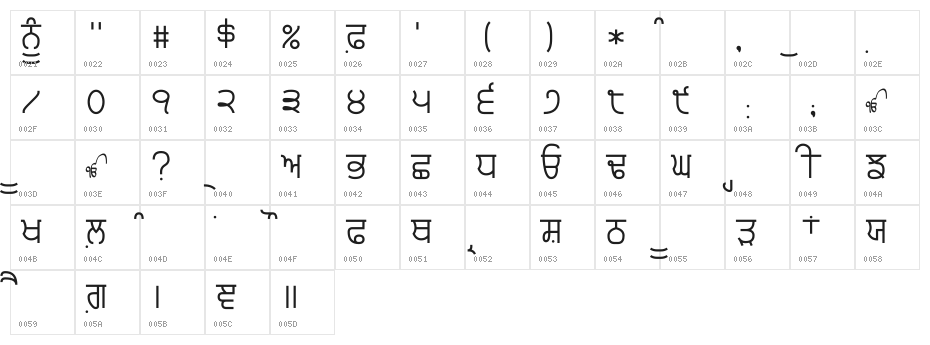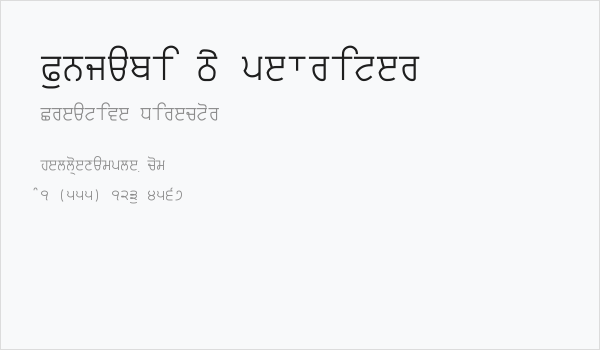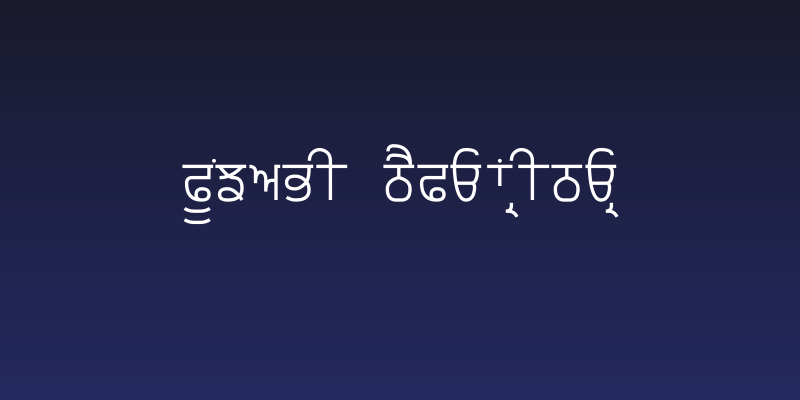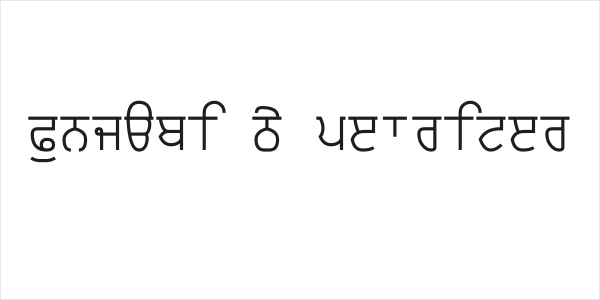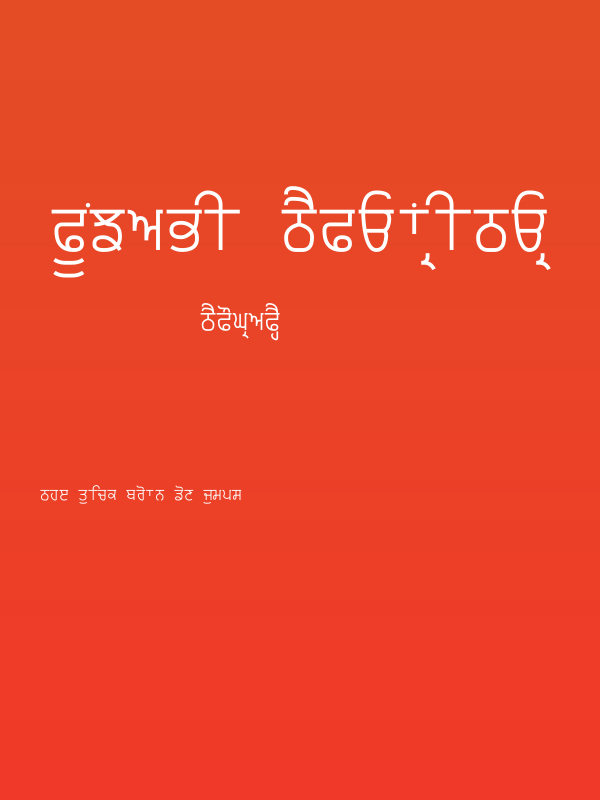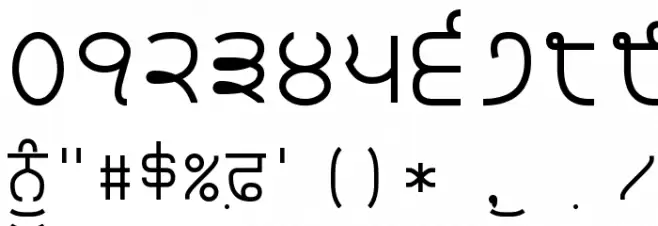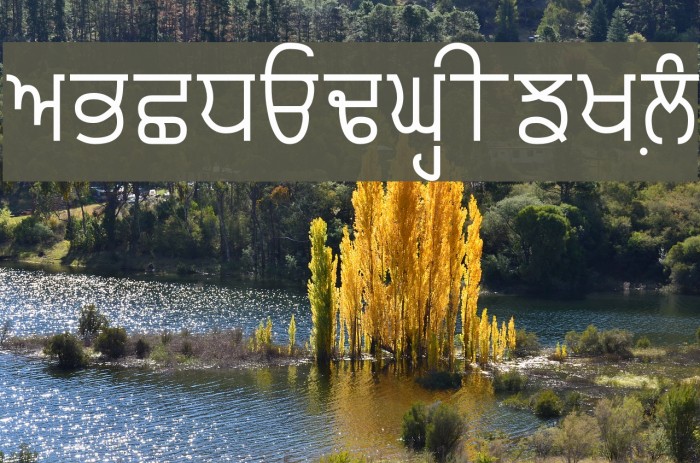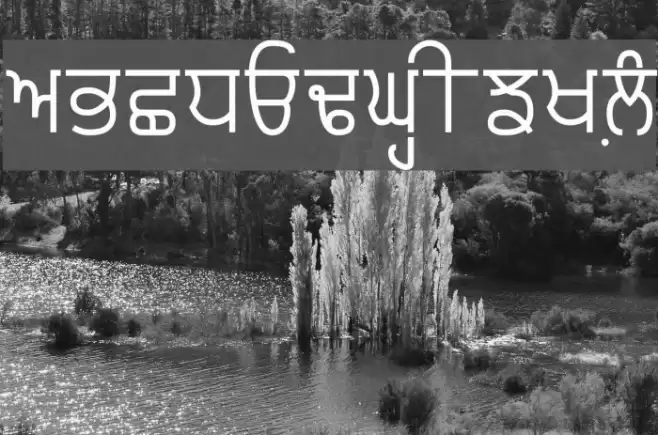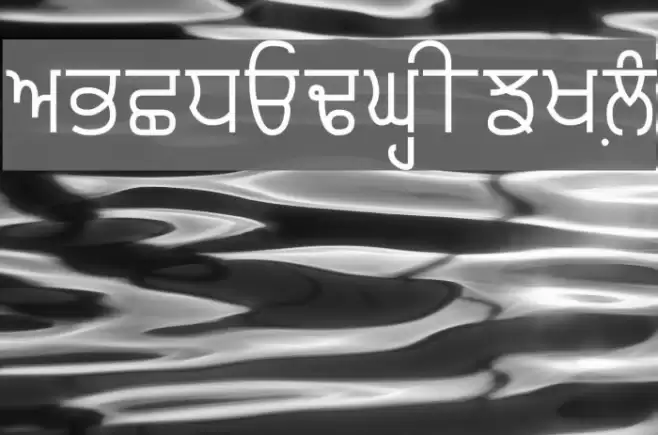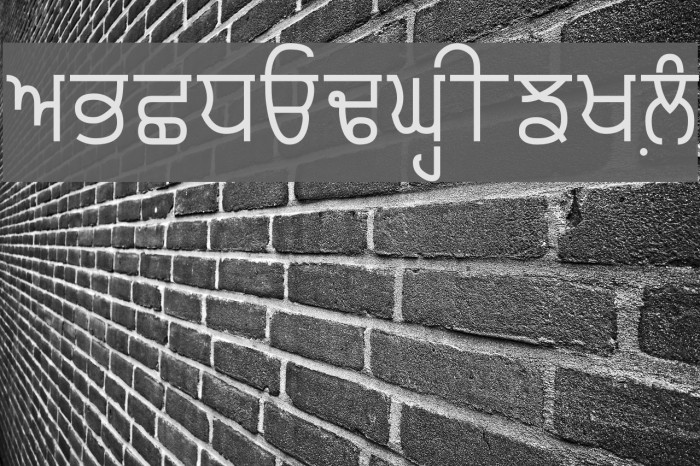
Punjabi Typewriter Font
| Gesamtstil | Vintage |
| Anwendungsfall | Typewriter documents, Retro designs, Punjabi text. |
| Vorgeschlagene Projekte | Ideal for retro-themed designs, typewriter-style documents, and Punjabi language projects requiring a classic look. |